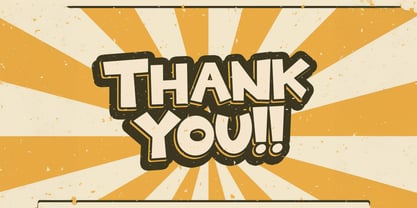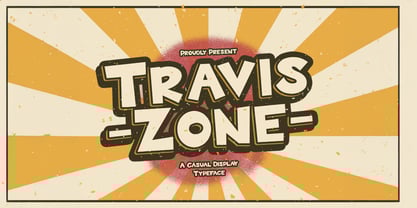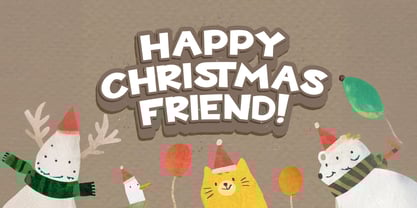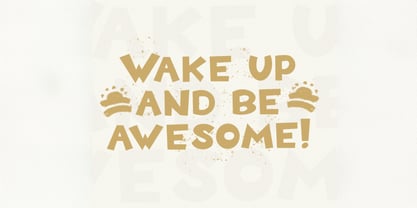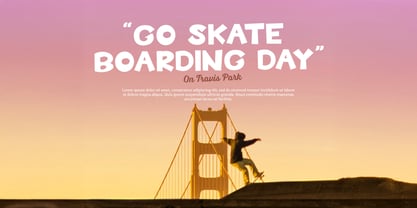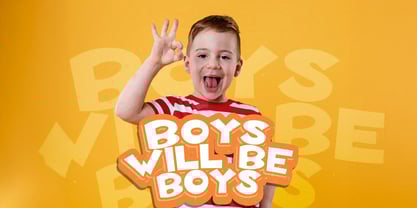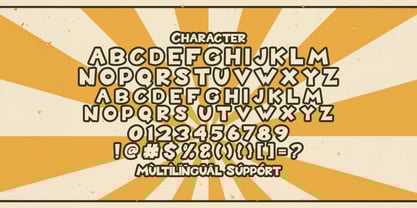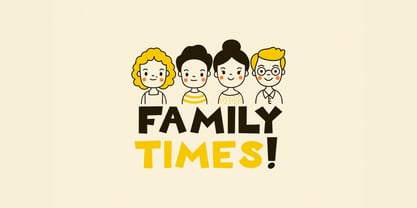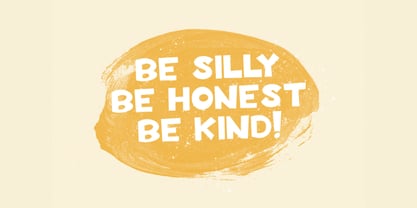
Travis Zone
von Stringlabs Creative Studio
Die Schriftfamilie Travis Zone wurde von Virgiawan Listanto entworfen und von Stringlabs Creative Studio veröffentlicht. Travis Zone enthält 1 Stile. Mehr über diese Familie
Travis Zone is a vibrant and fun display font that exudes energy and personality. With its bold, rounded shapes and playful character, this font is perfect for creating designs that need a touch of fun and excitement.
Designer: Virgiawan Listanto
Foundry: Stringlabs Creative Studio